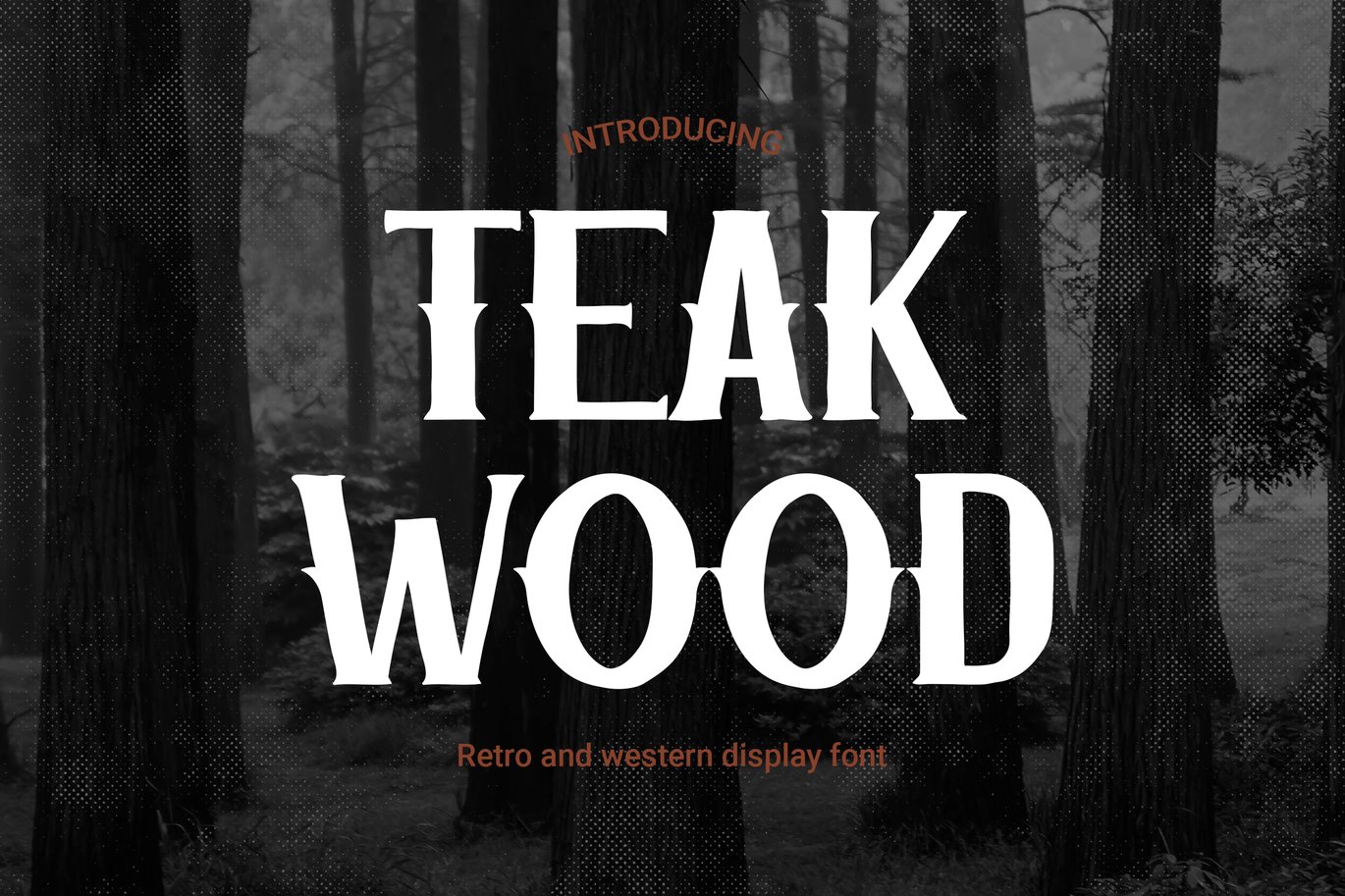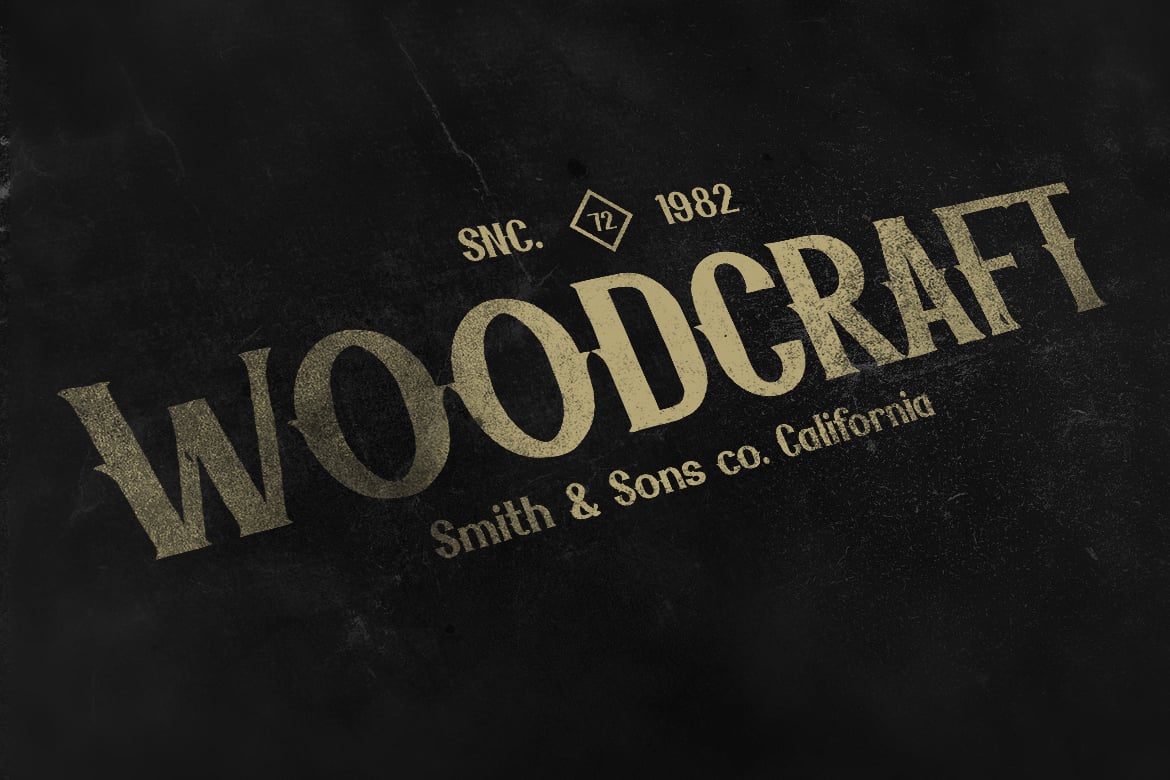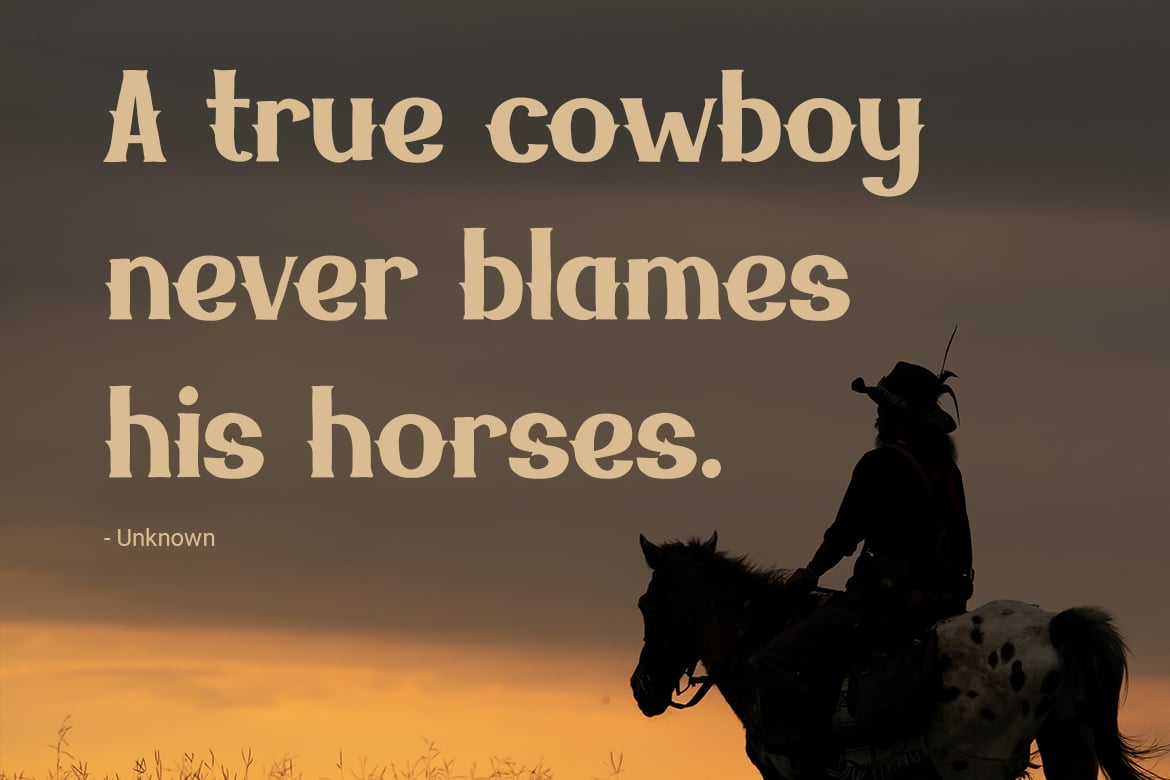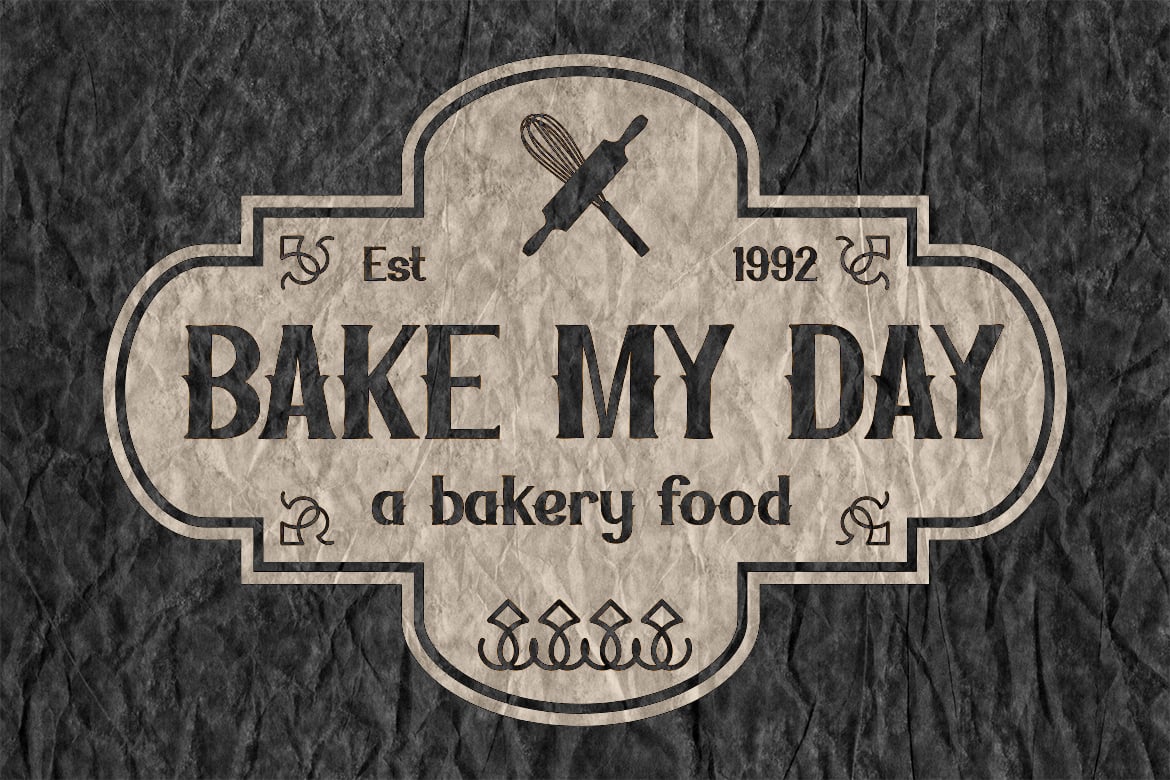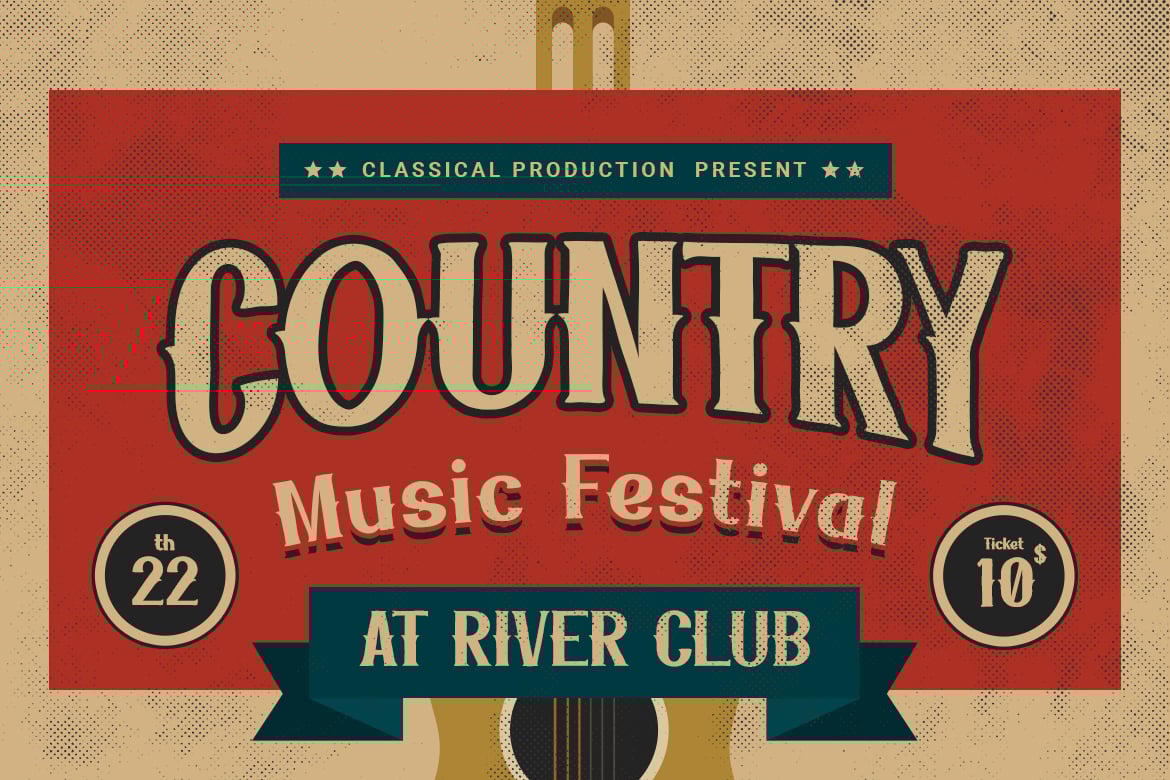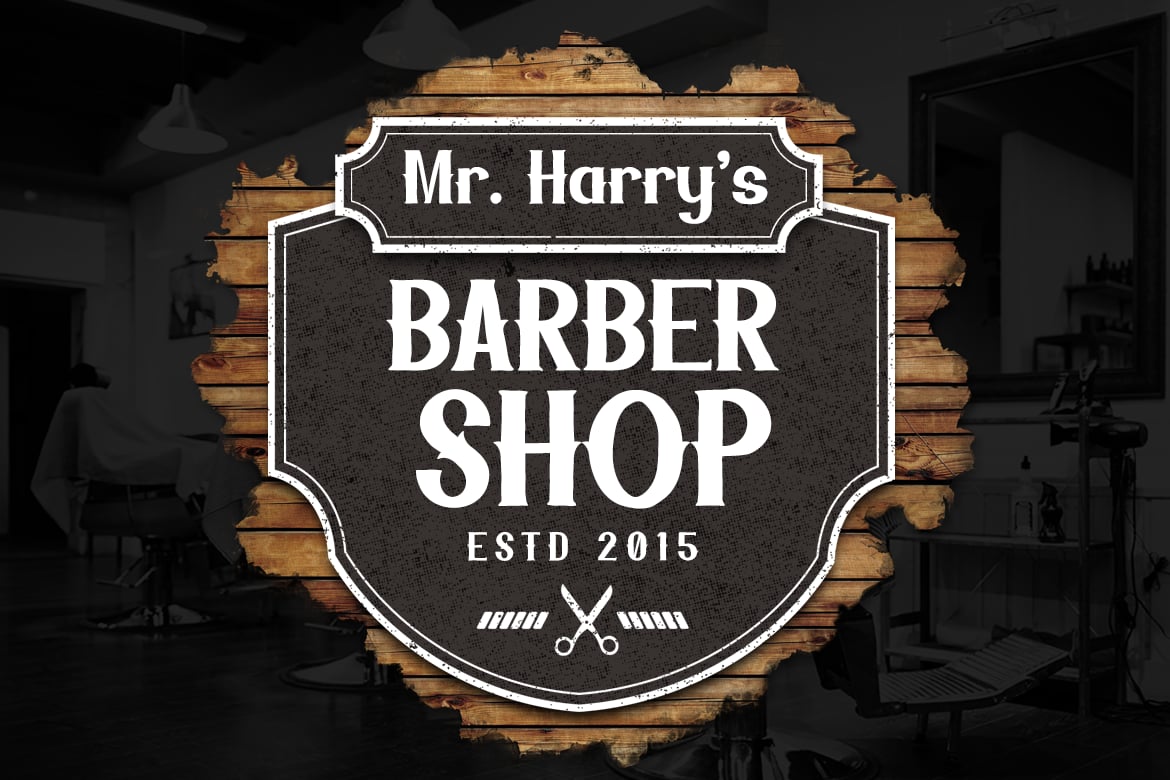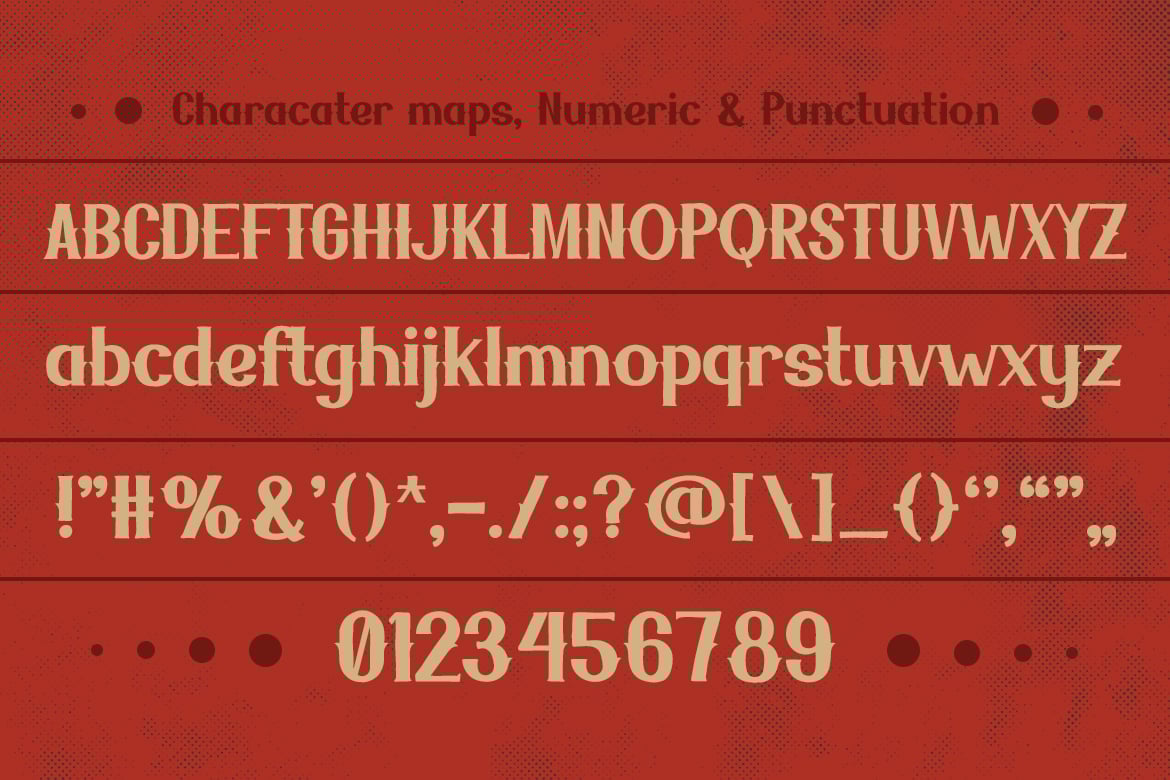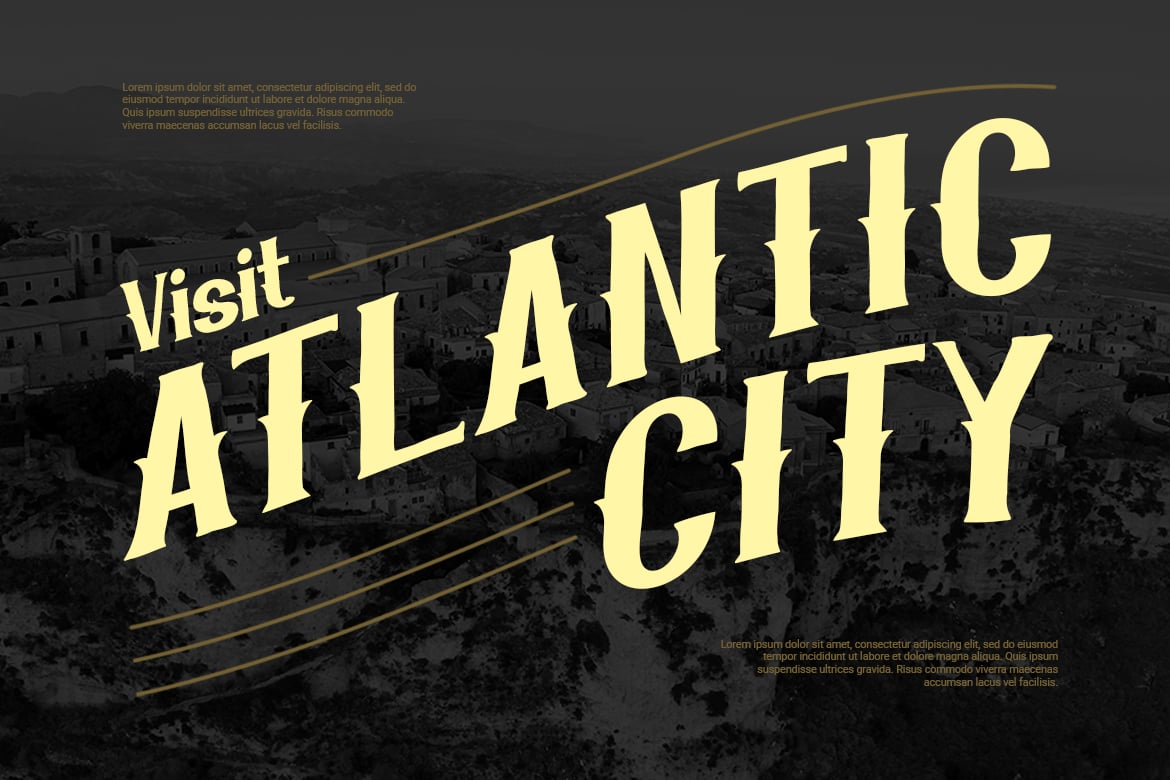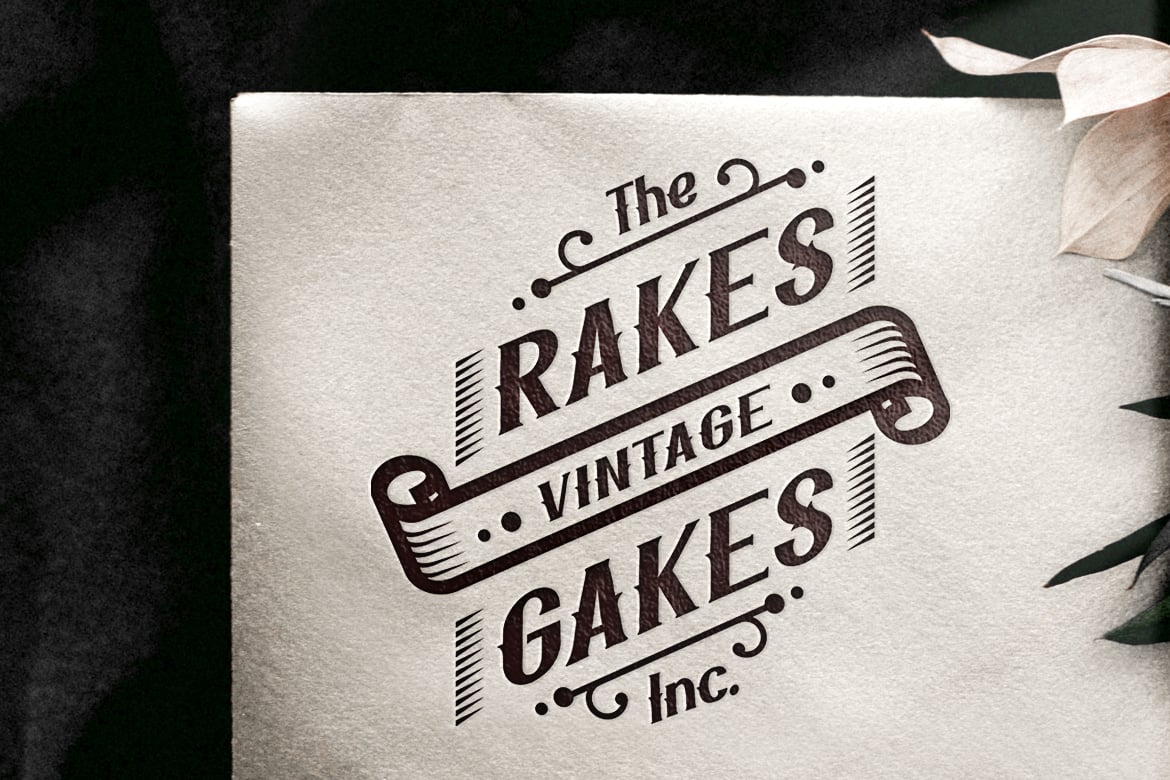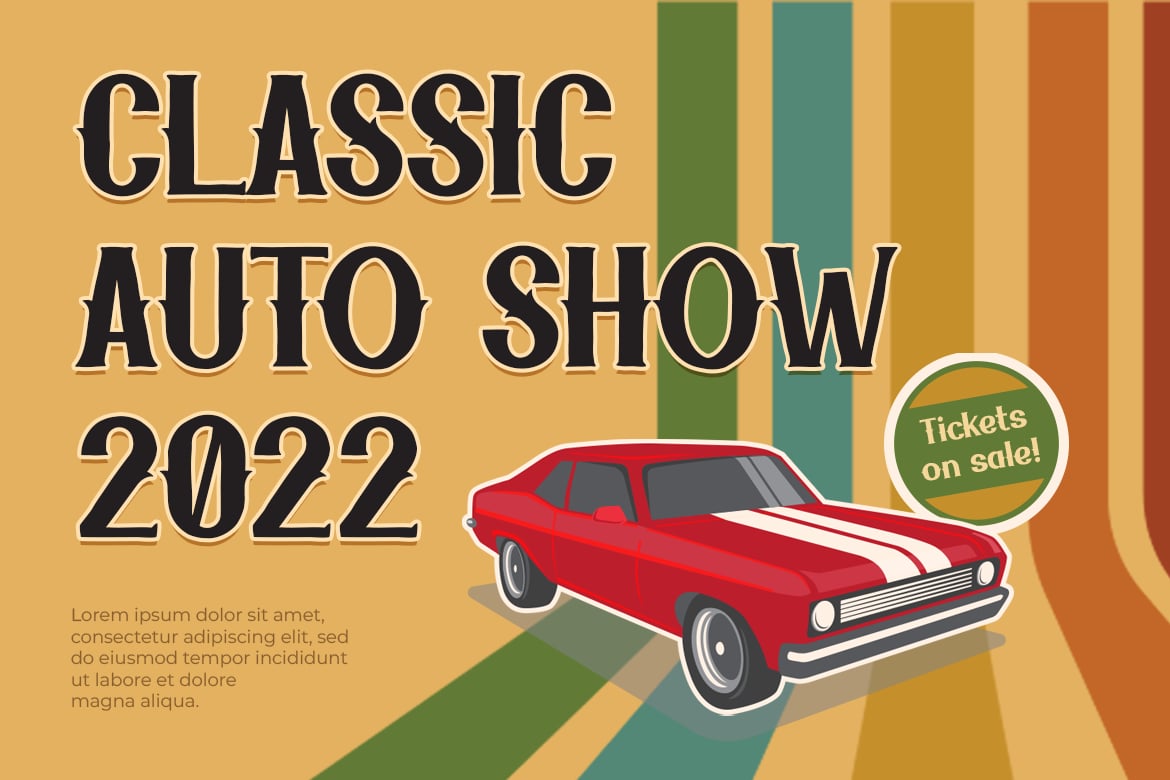
Teak Wood – Rustic Retro Font Vibes
Teak Wood is a font that invites you to embrace the rustic elegance of the wild west. Tailor-made for event posters, logos, merchandise, restaurants, and retro marketing tools, Teak Wood captures the essence of a bygone era. With its vintage charm and rugged style, this font transports you to the classic days of the Old West. Whether you’re designing for an event, creating an authentic logo, or enhancing your restaurant’s ambiance, Teak Wood brings an air of nostalgia and authenticity. Let the captivating letterforms of Teak Wood tell tales of adventure and create a timeless connection to the past. Unleash the wild west spirit and elevate your designs with the rustic charm of Teak Wood. Make your projects stand out with a touch of vintage elegance that only Teak Wood can provide!